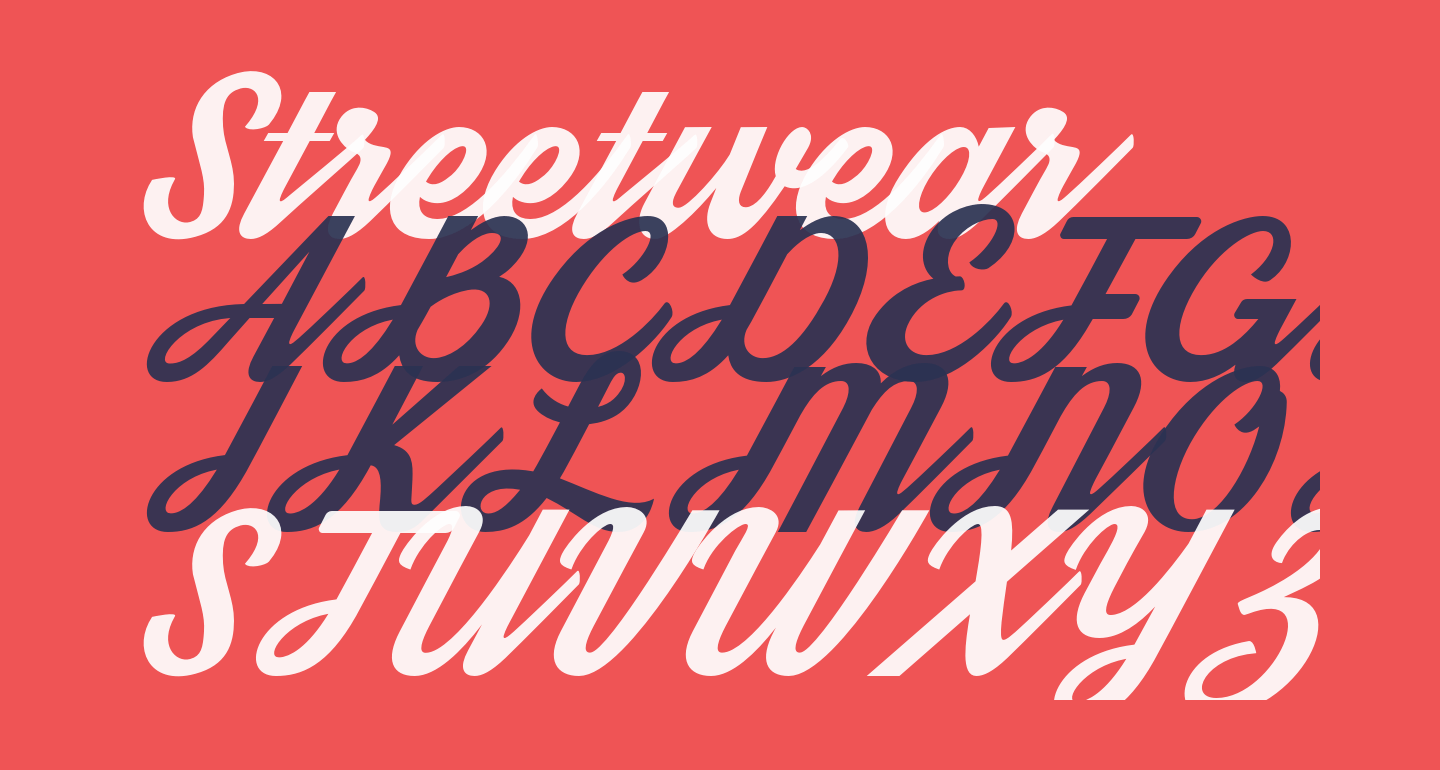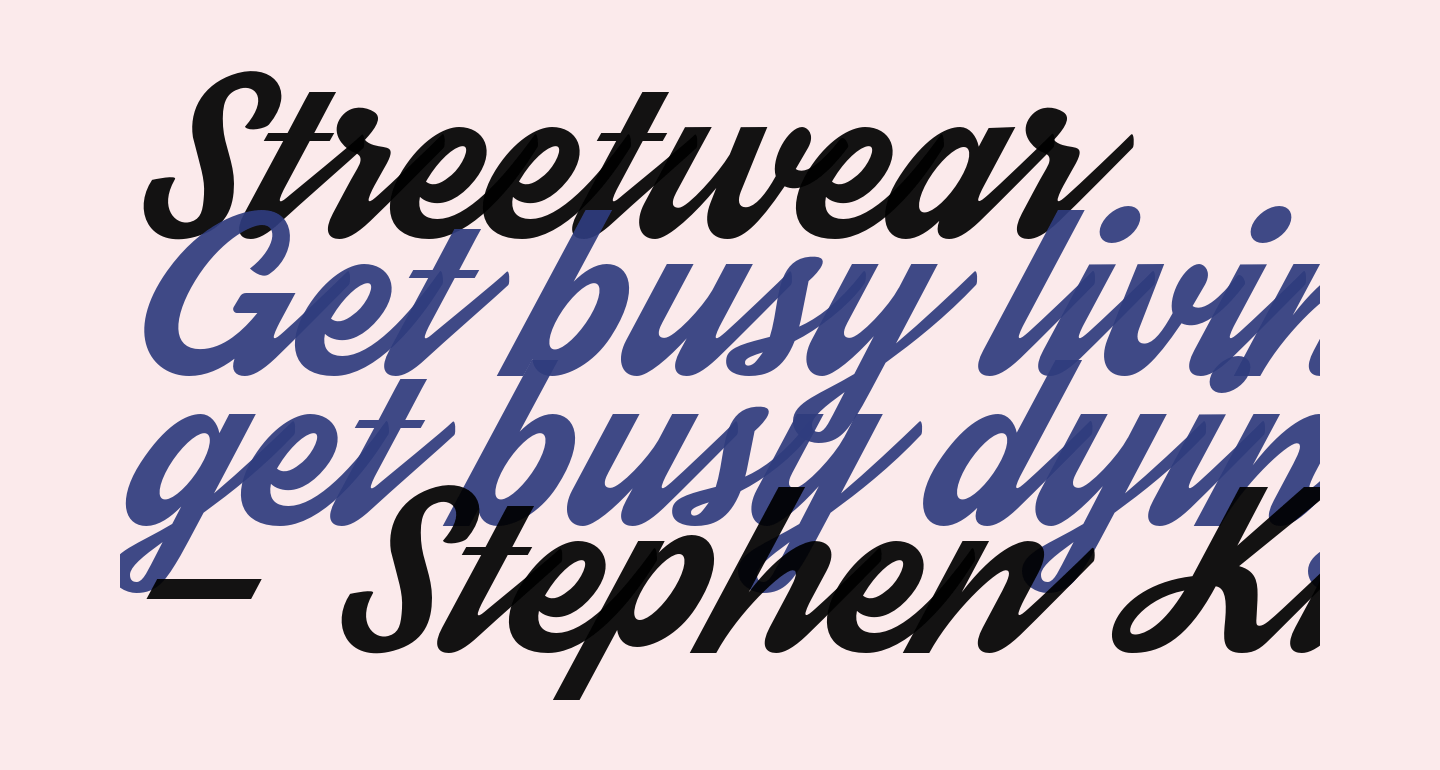
Cool Streetwear Fonts Free 2022. It looks like kollektif font has a classical, close to the noble look and is nice. A b c d e f g h i.
Introducing streetwear font, an extraordinarily stylish sans serif font like rustic typeface of the today’s times. It looks like 1960s and 70s fashion and sport related typeface,. Want more fonts and design inspo?